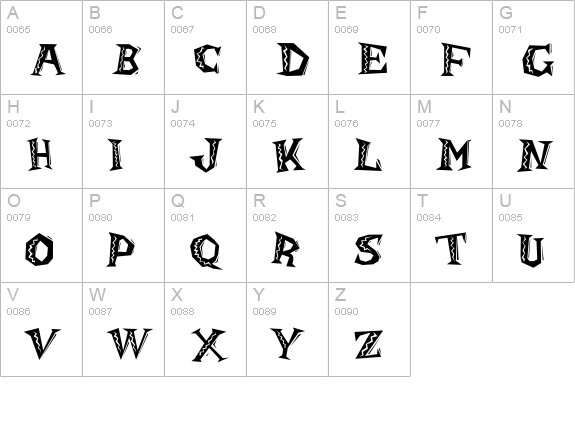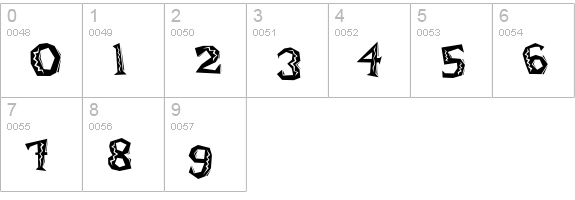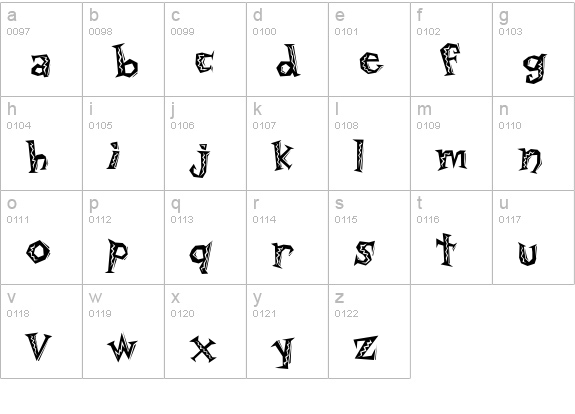
DaddyOJunkie Font Details
Introducing DaddyOJunkie, a font that brings a perfect blend of retro vibes and modern flair. This unique typeface is designed to capture the essence of the groovy era, with its bold and dynamic letterforms that exude an undeniable coolness. With its distinct style and eye-catching appeal, DaddyOJunkie is perfect for a wide range of design projects. Whether you're working on a vintage poster, a music album cover, or a funky logo, this font will instantly bring a touch of nostalgia and personality. But what's truly remarkable about DaddyOJunkie is that it's not just an exceptional font – it's also free! That's right, this amazing typeface is freely available to download at FontsMarket.com. Now you can add a touch of retro goodness to your designs without breaking the bank. Downloading DaddyOJunkie is a breeze. Simply head over to FontsMarket.com, find the font, and with just a few clicks, it will be yours to use and enjoy. The ease of access and the fact that it won't cost you a penny makes DaddyOJunkie an absolute must-have for any designer or typographer. So why wait? Embrace the retro charm and download DaddyOJunkie today. Let your creativity soar with this iconic font that effortlessly blends the past and the present.